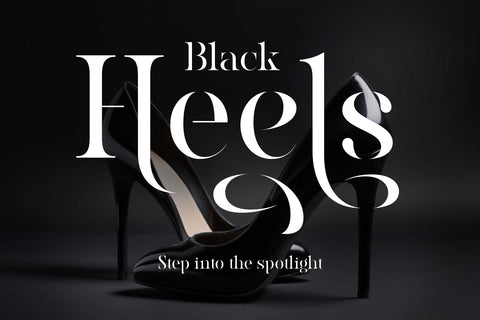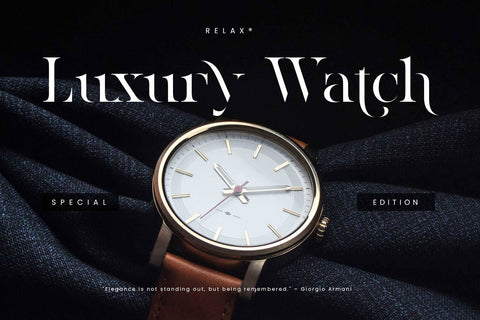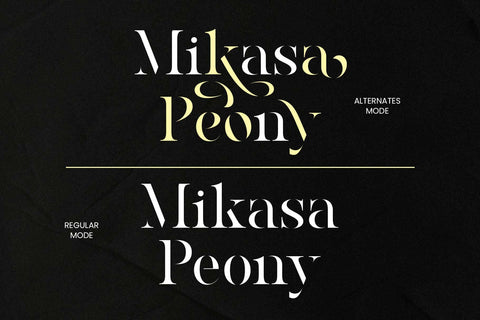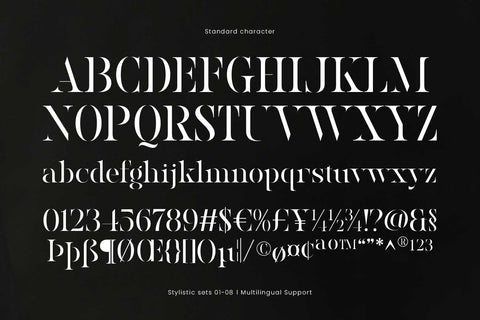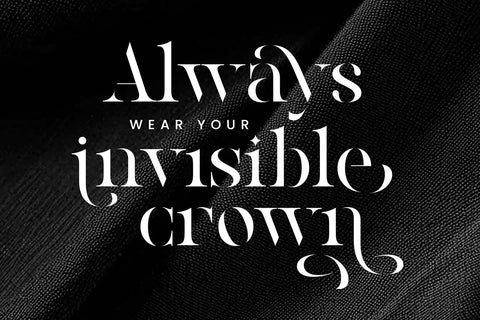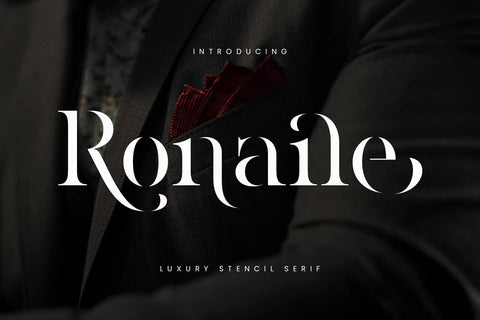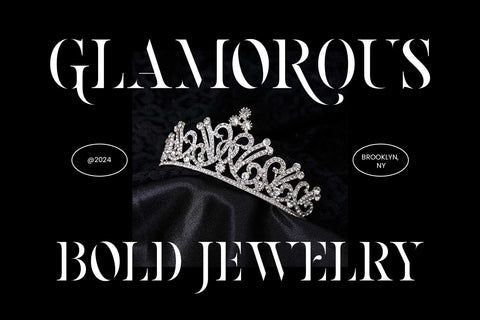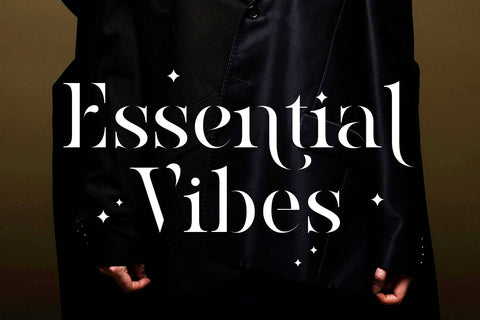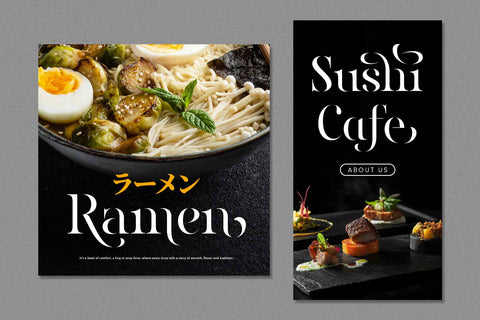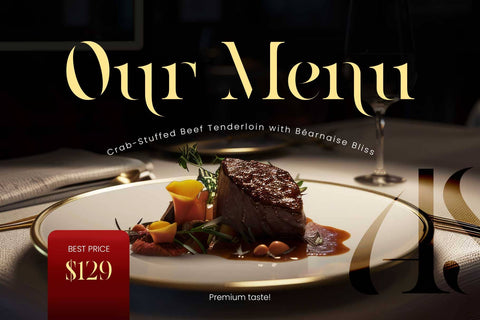
Ronaile - Special Stencil
Introducing Ronaile – A Bold Luxury Serif with Stencil Flair
Ronaile is an elegant and modern serif font with a distinctive stencil design that brings a high-end aesthetic to any project. Featuring bold contrasts and sleek, sharp edges, this typeface captures attention while maintaining perfect readability. The disappearing thin lines create a unique look that makes Ronaile stand out as a stunning display font.
Perfect for logos, fashion branding, editorial design, wedding invitations, packaging, and more, Ronaile effortlessly blends sophistication with a contemporary edge. Add a touch of refinement and boldness to your creative work with this versatile, stylish font.
- Numbers & symbols
- Stylistic alternates
- Stylistic ser 01-08